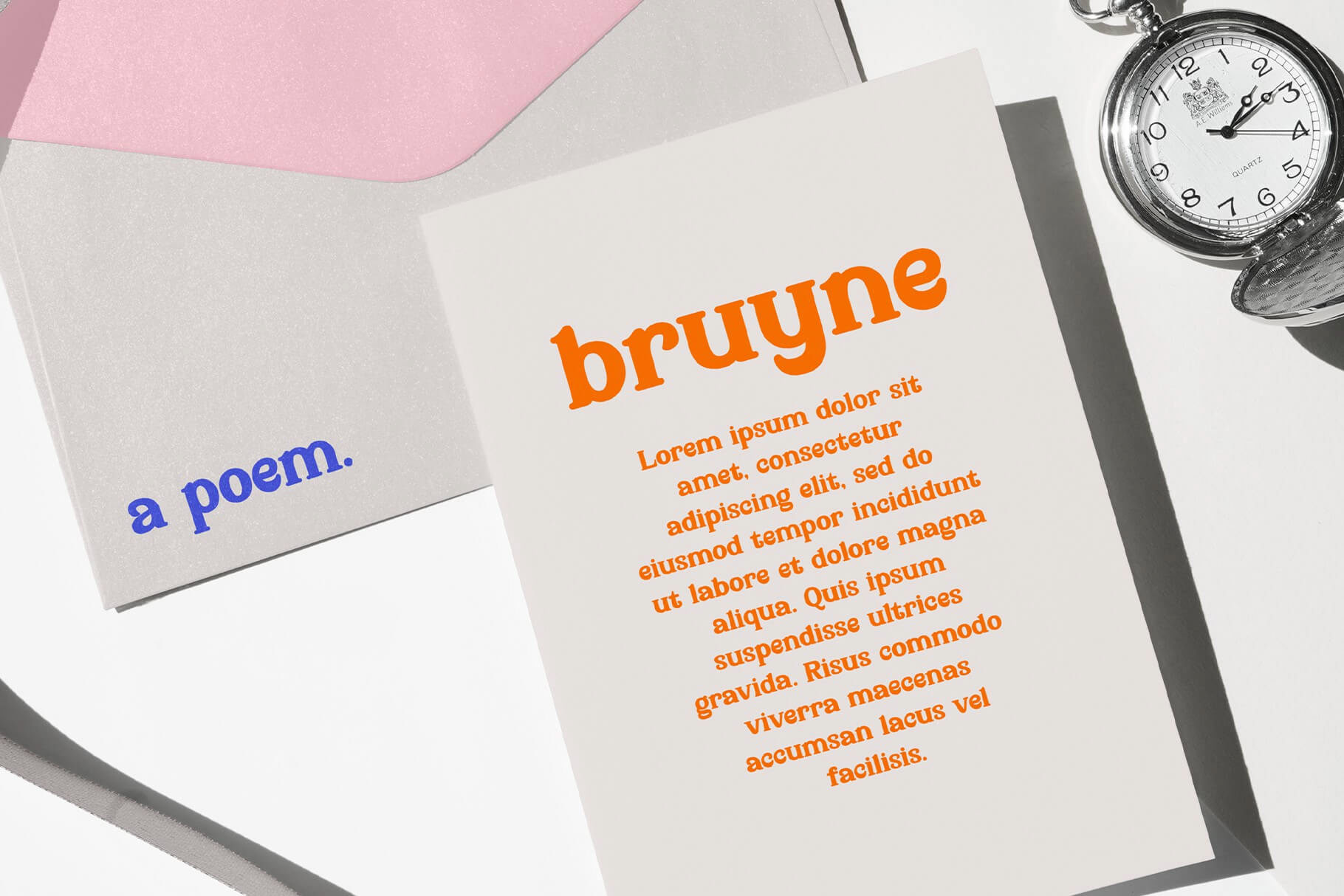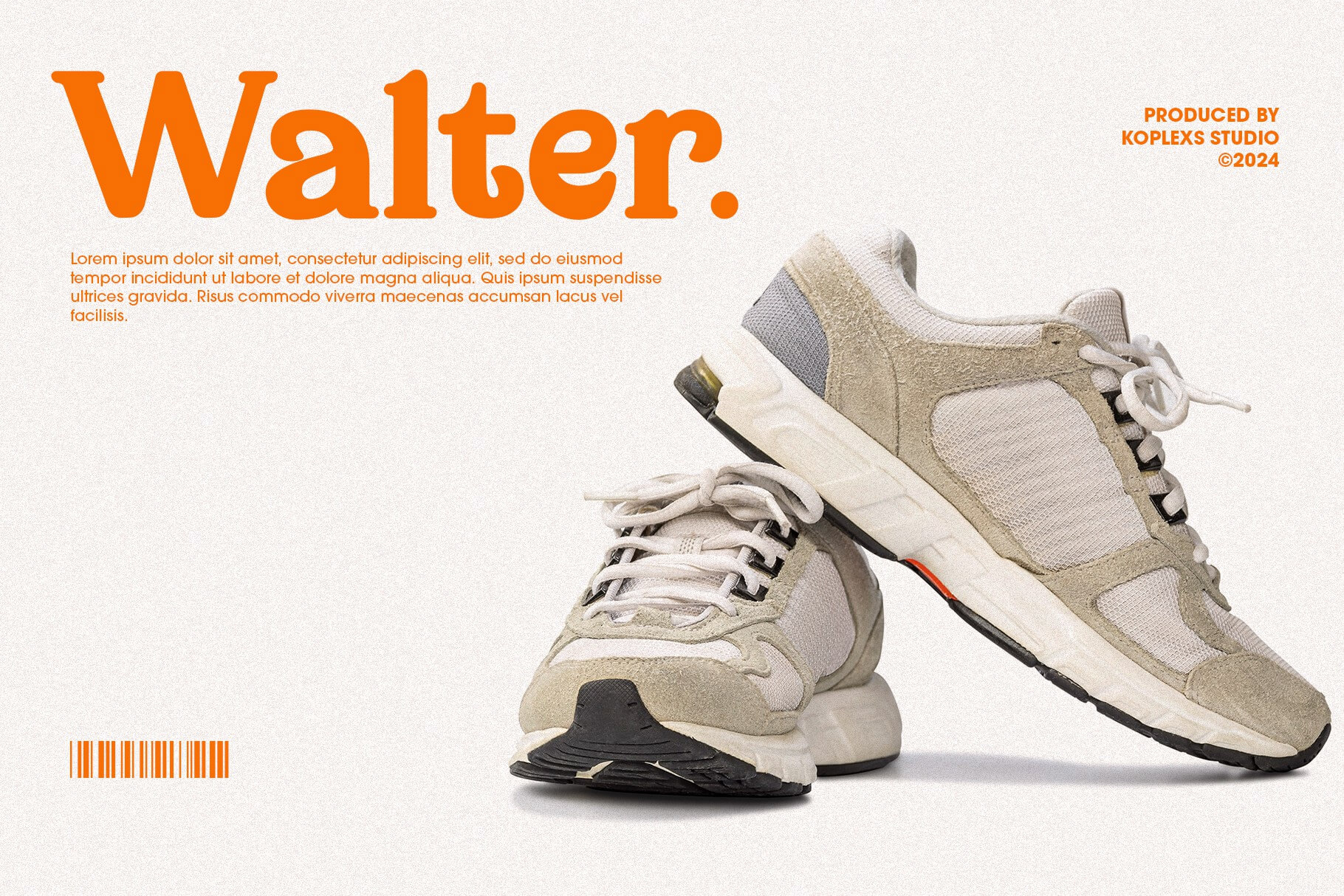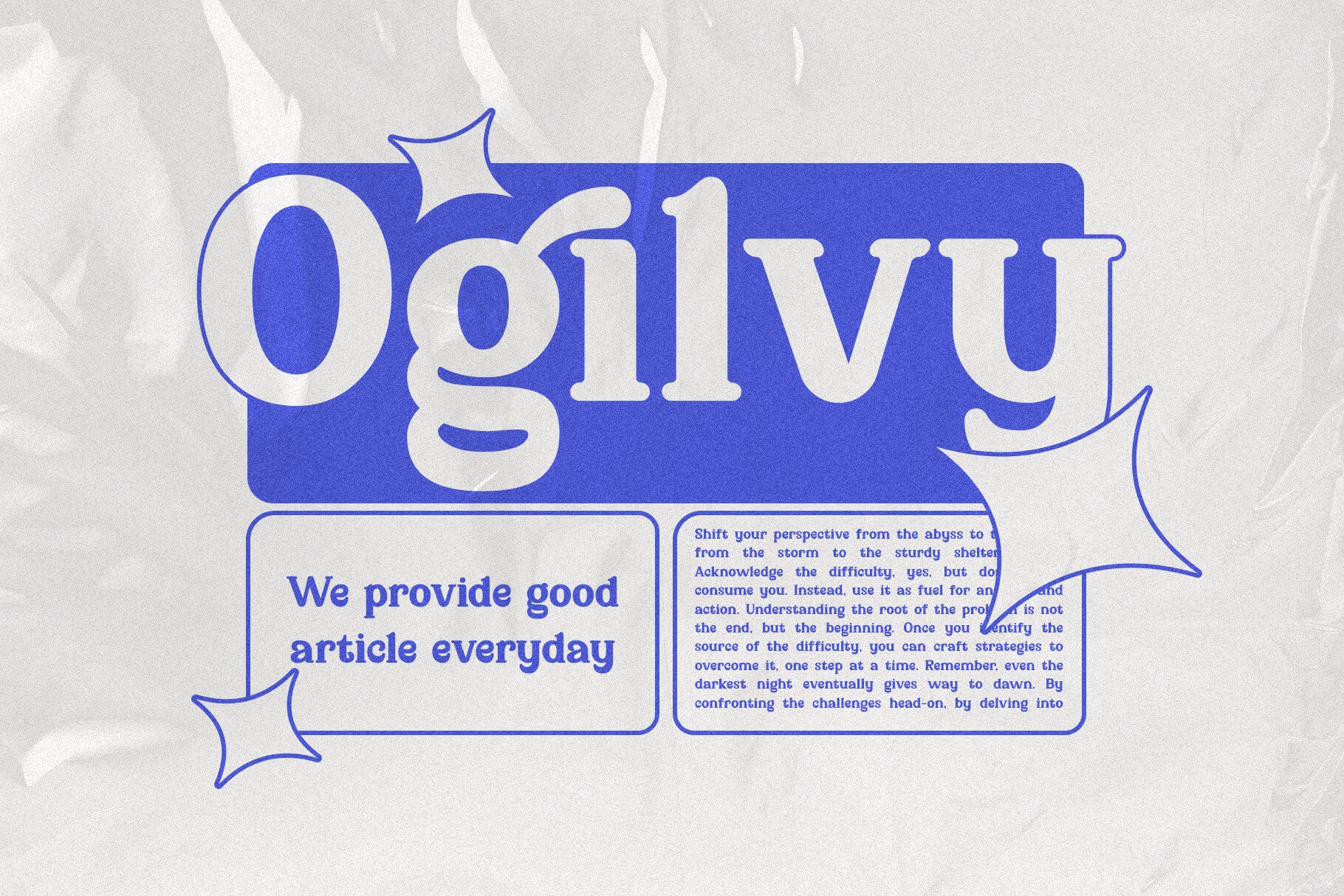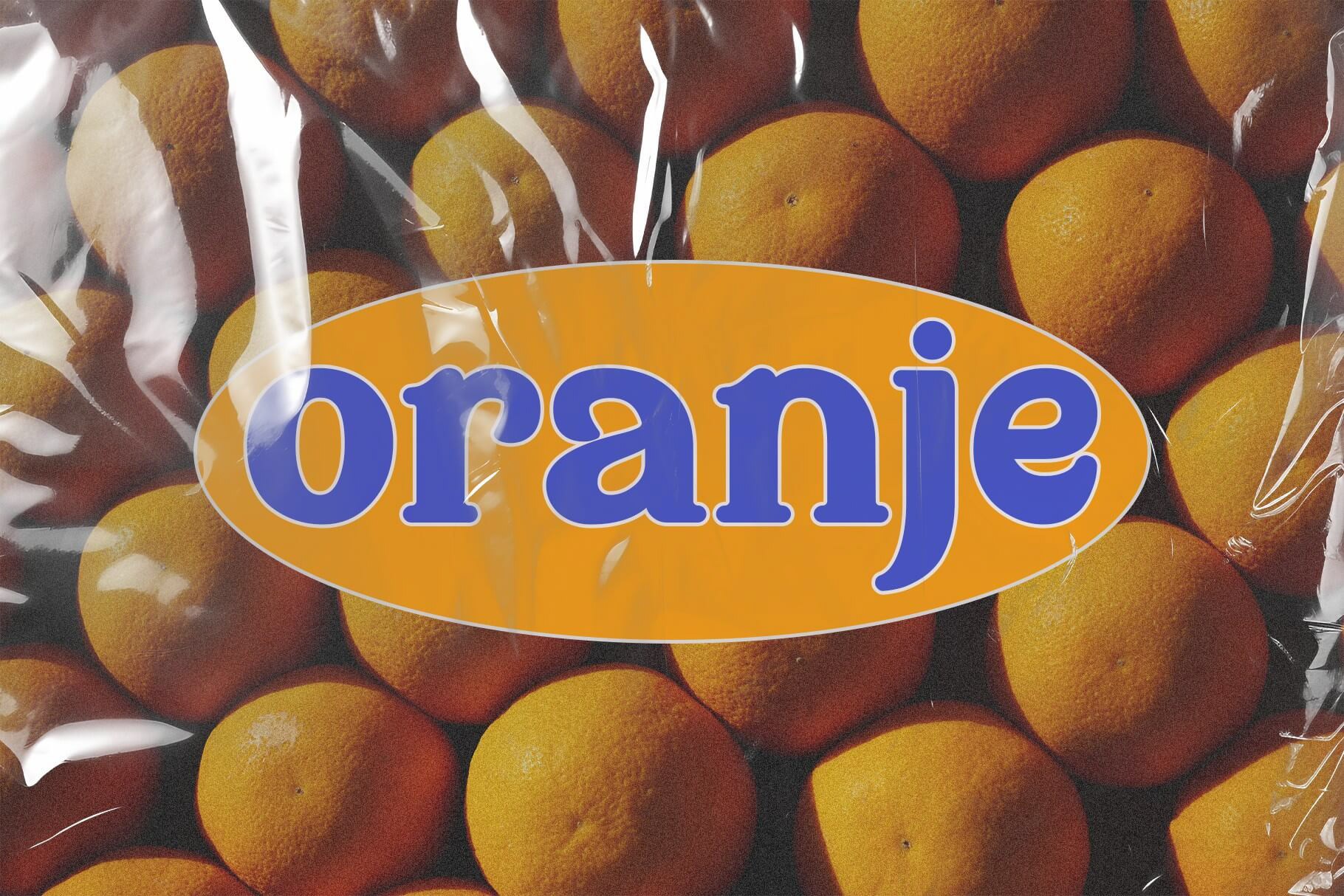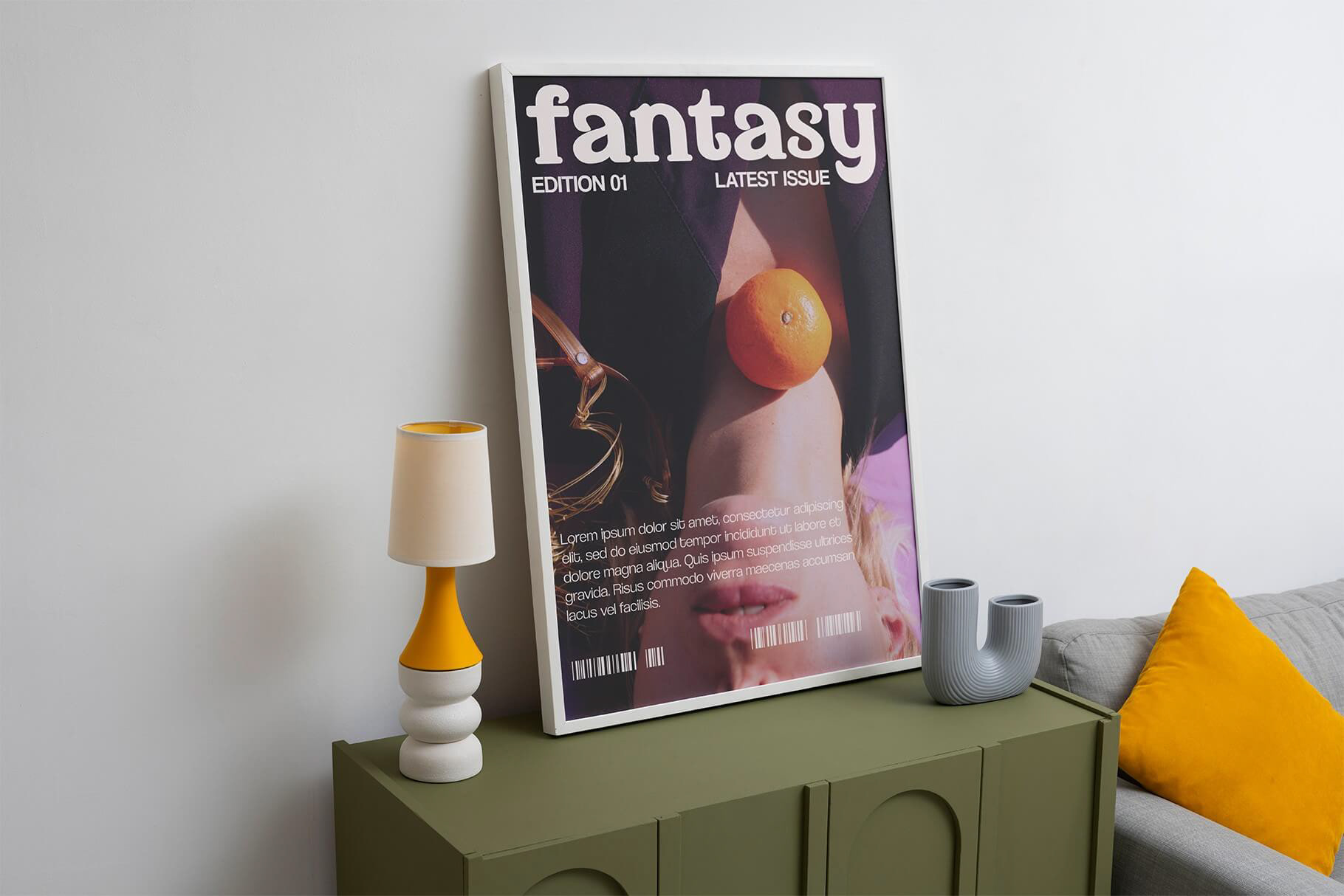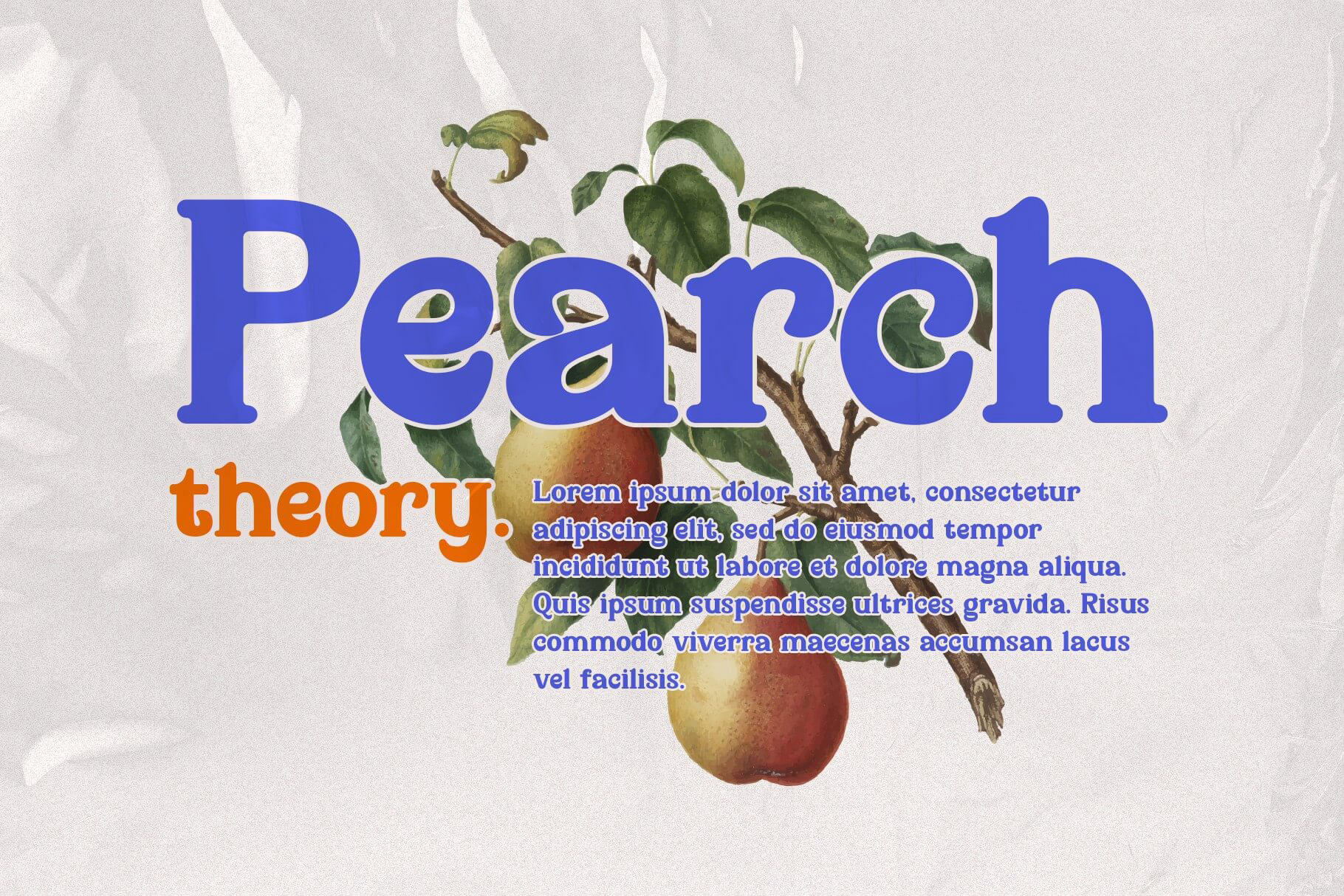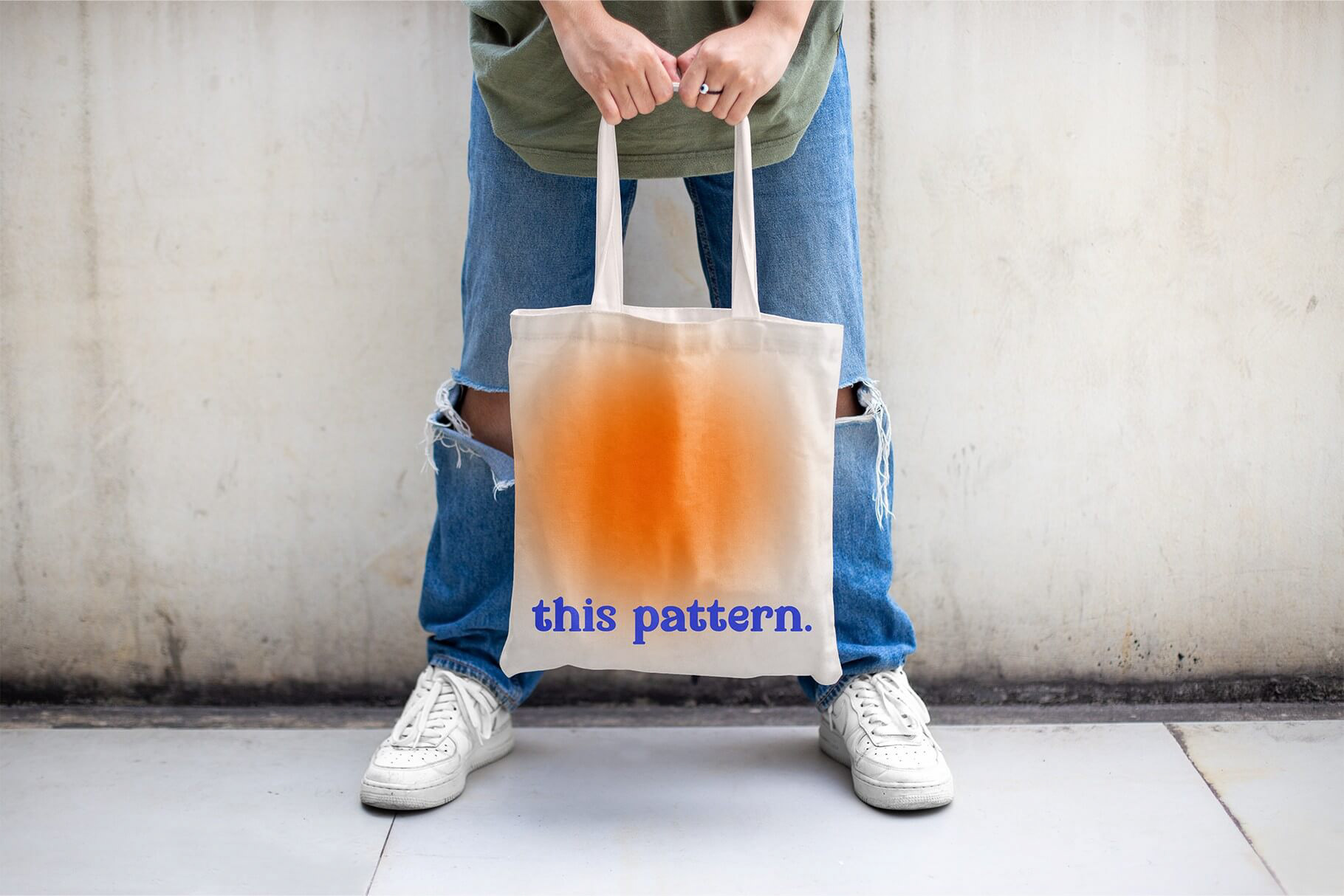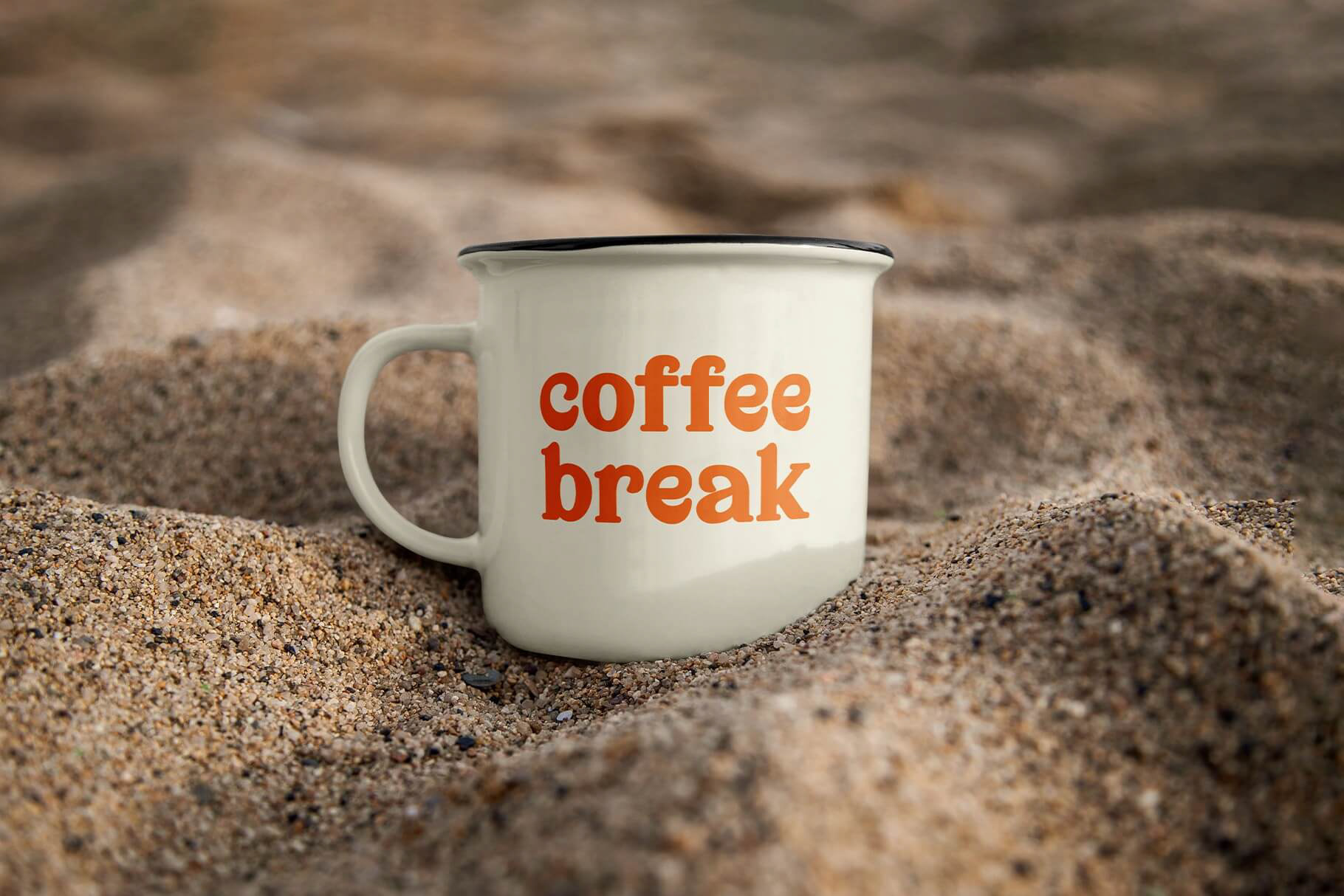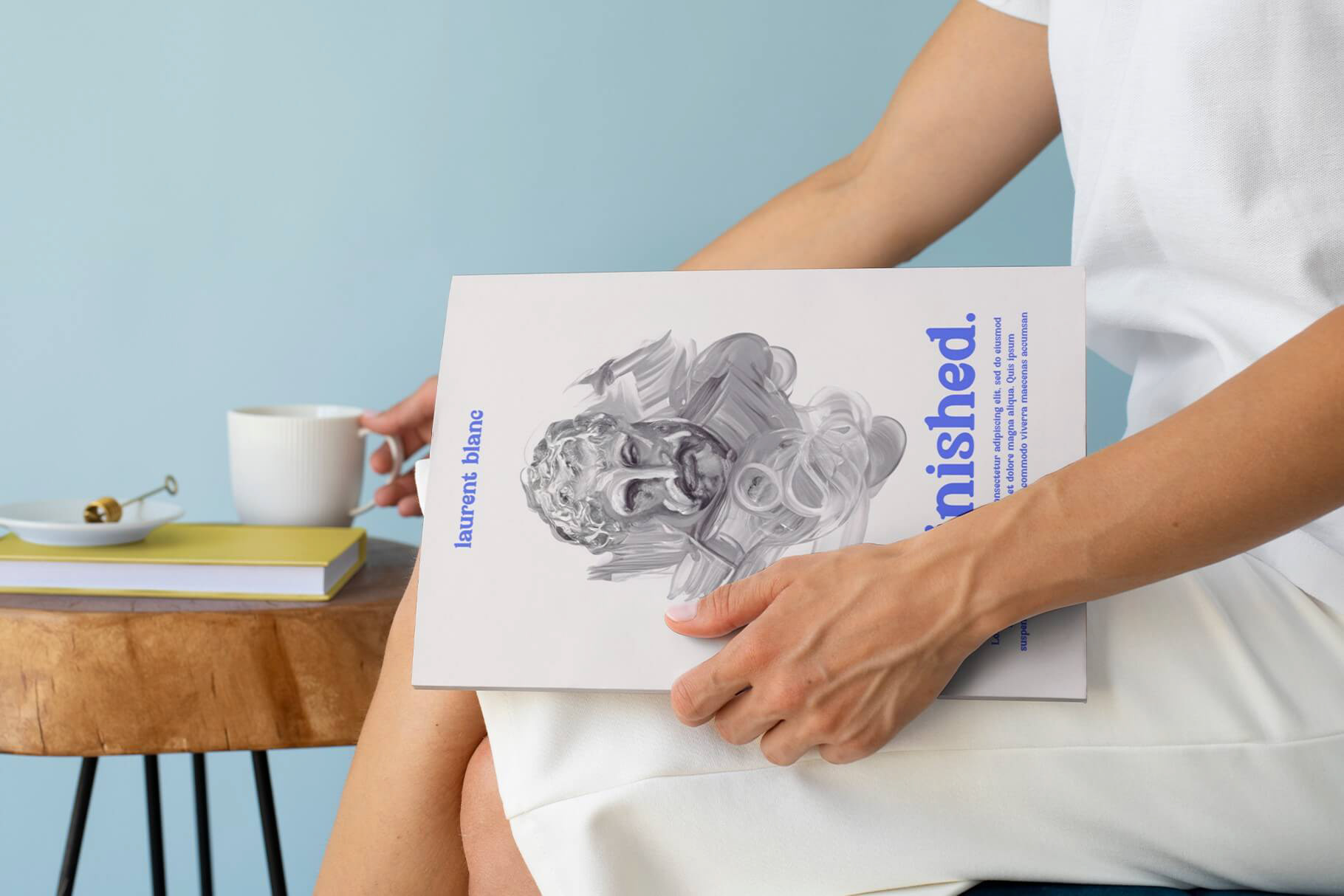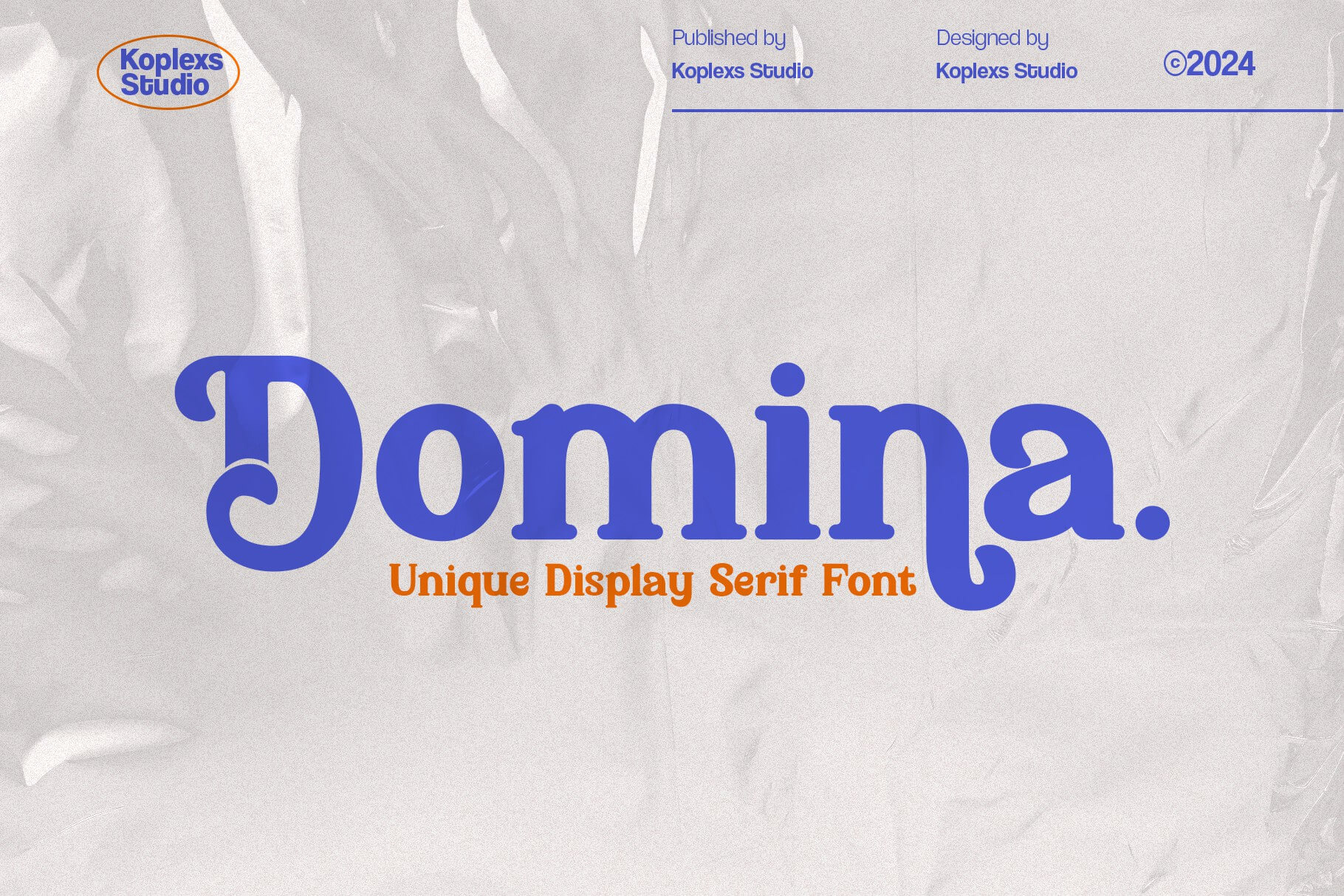
Domina - Display Serif Font
Domina - Display Serif Font is perfect for an elegant & luxury logo, classy editorial design, women’s magazine, fashion brand, cosmetic brand, fashion promotion, modern advertising design, invitation card, art quote, home decoration, book/cover titles, special events, and much more.